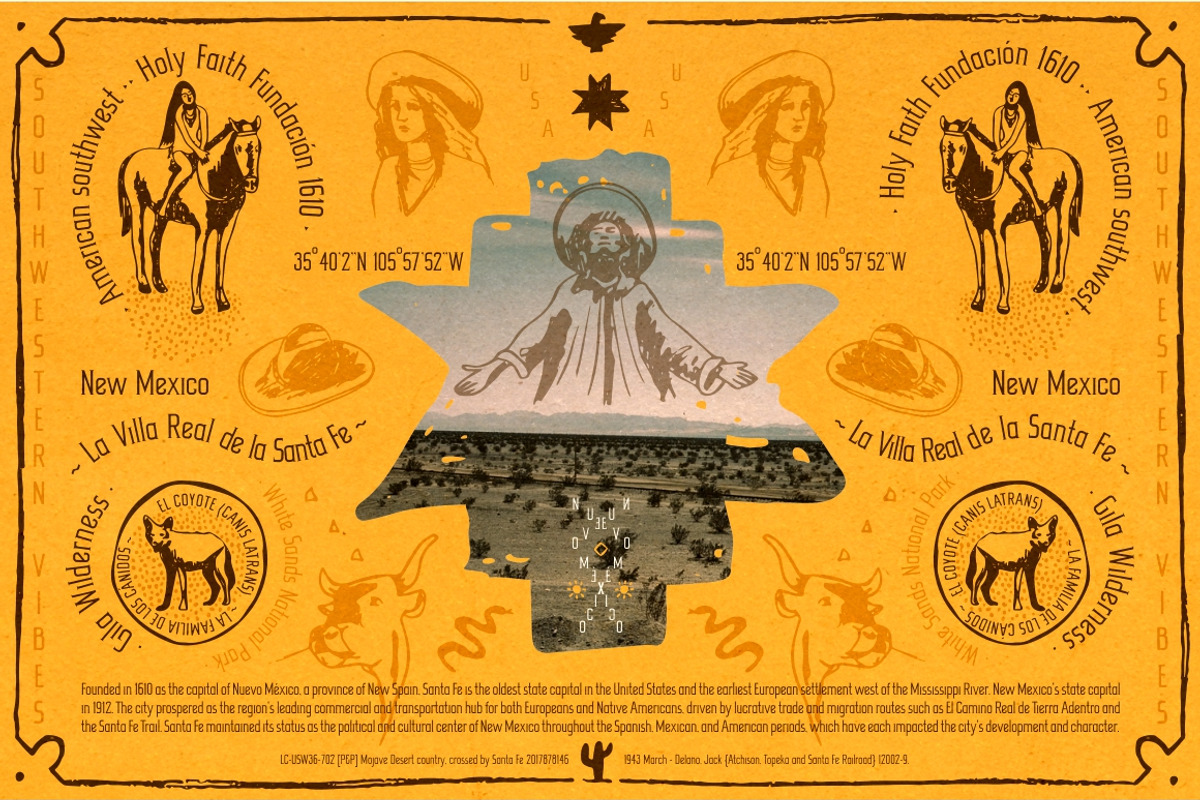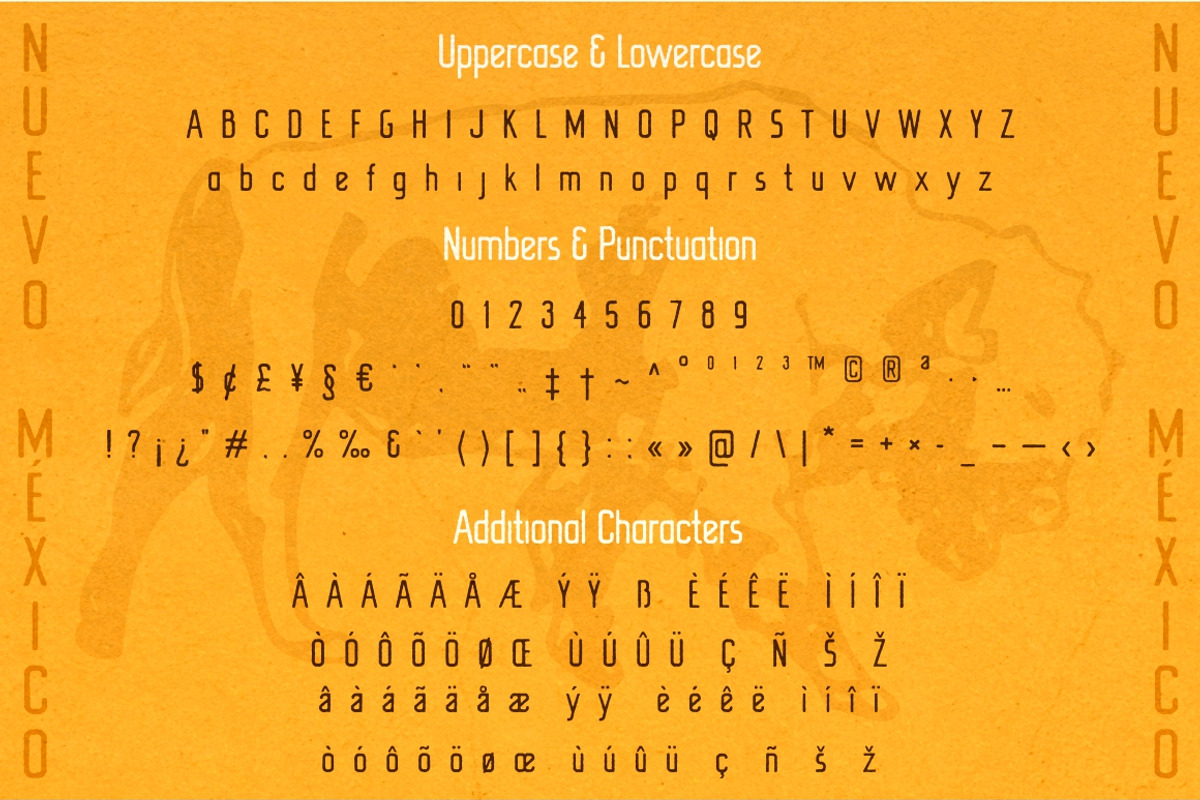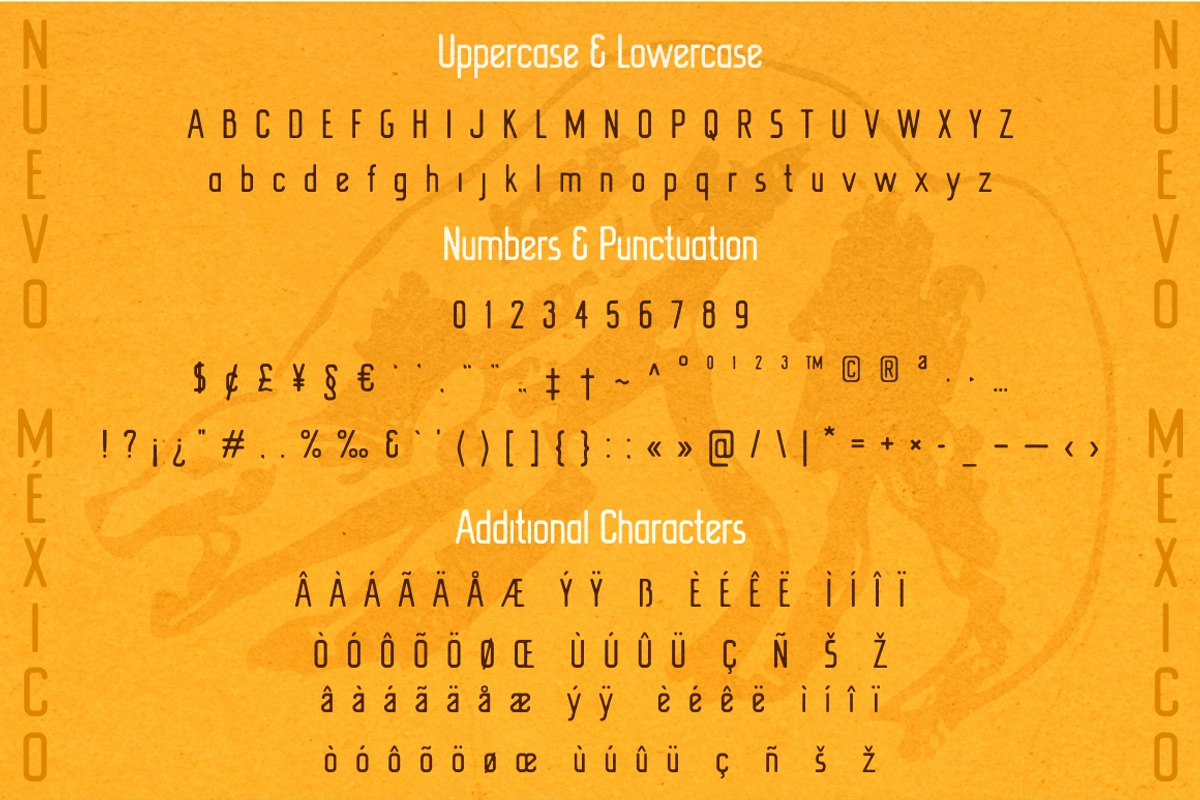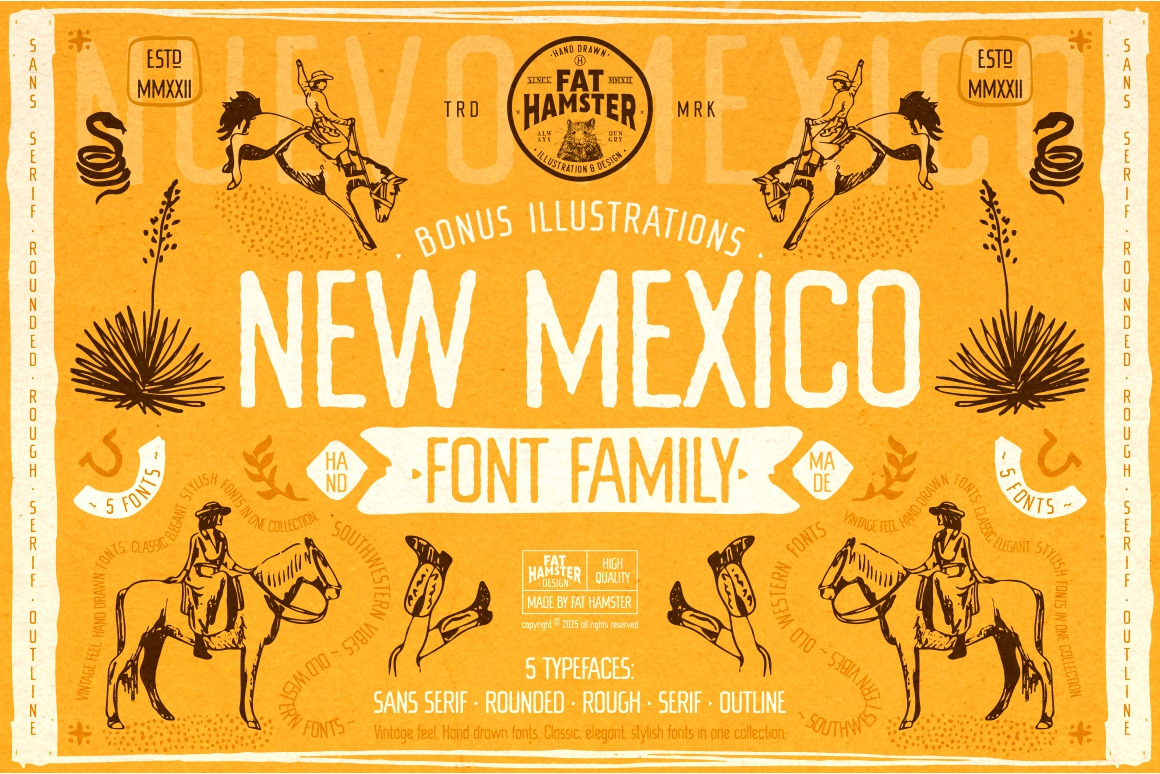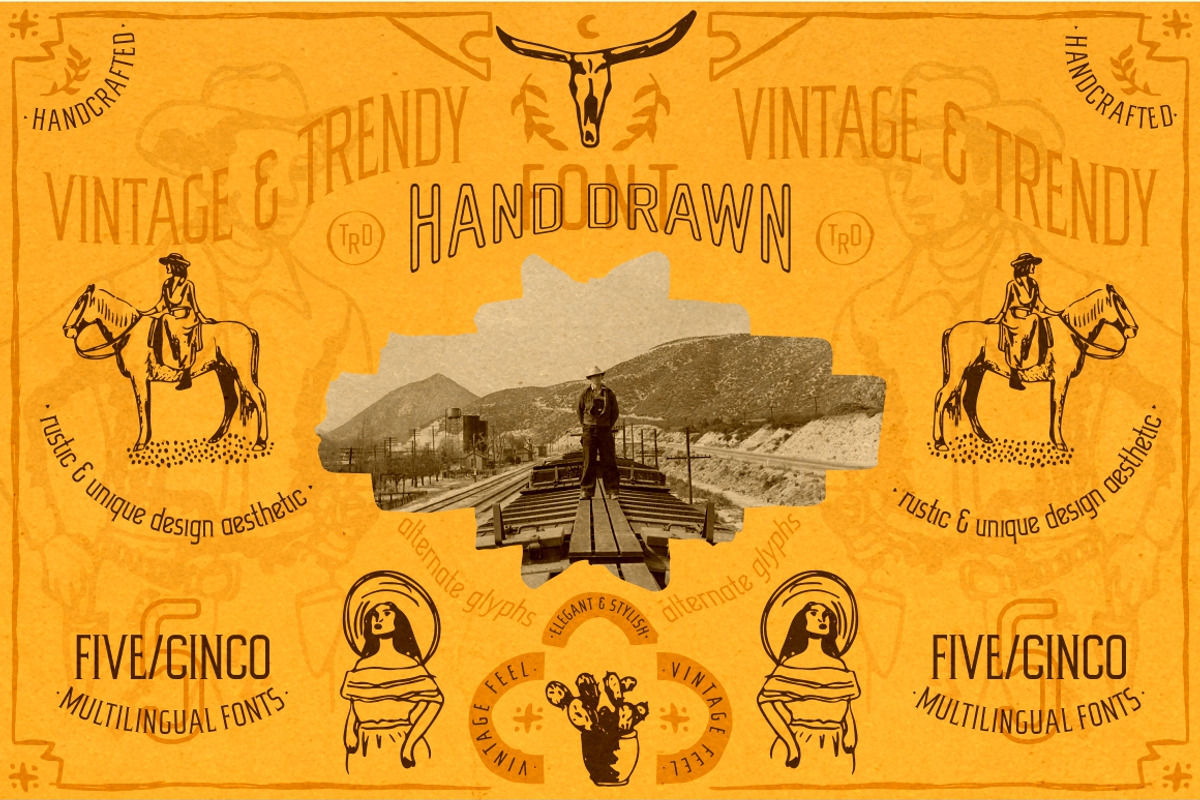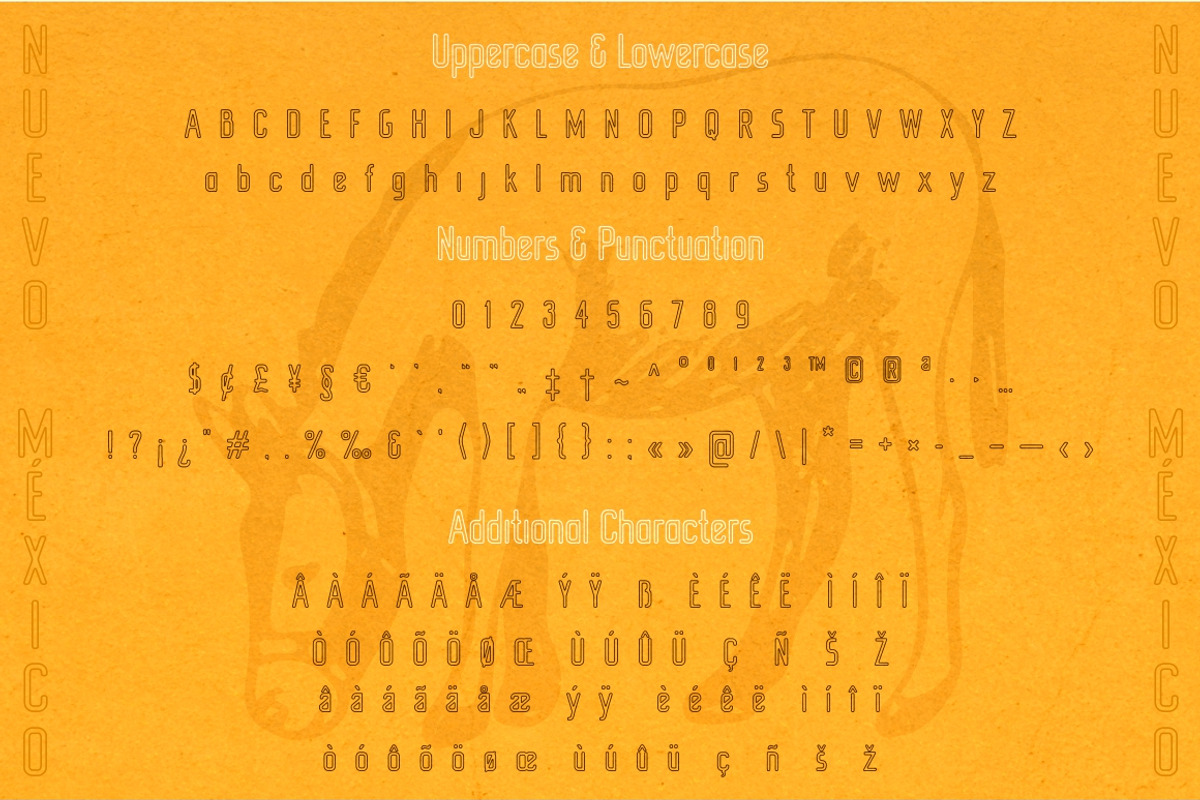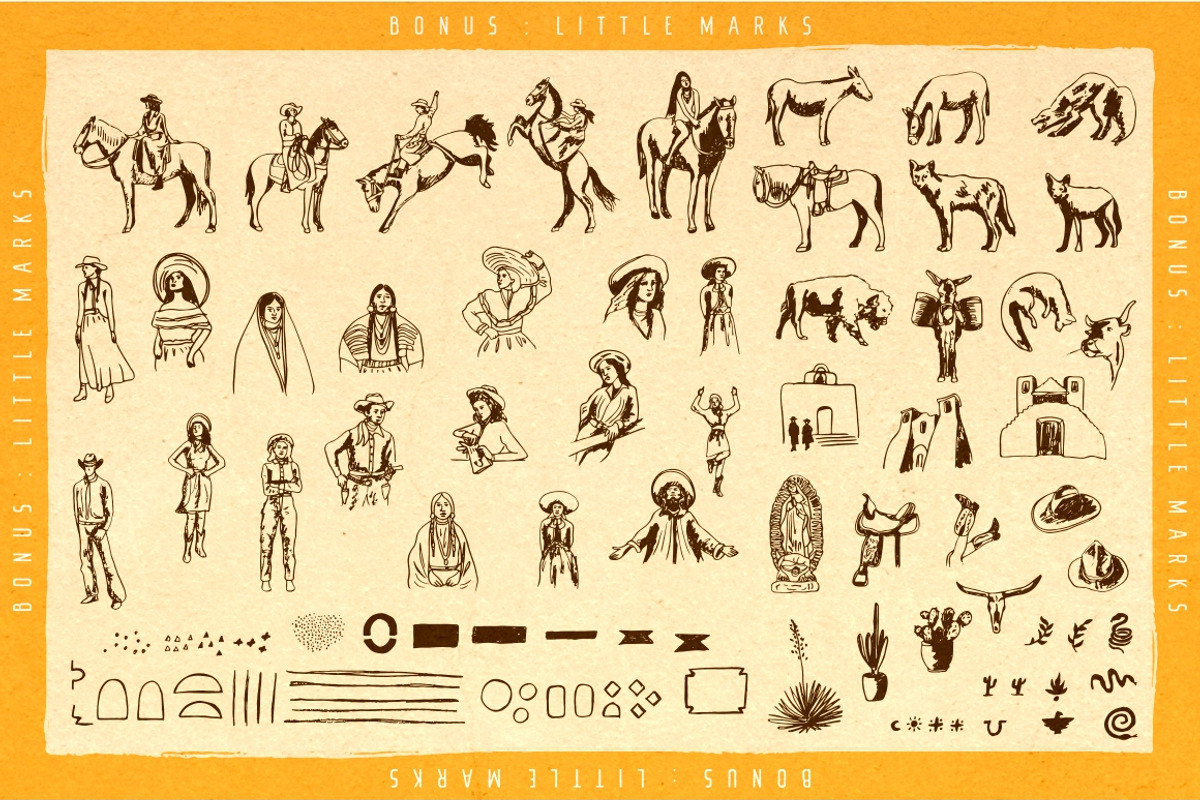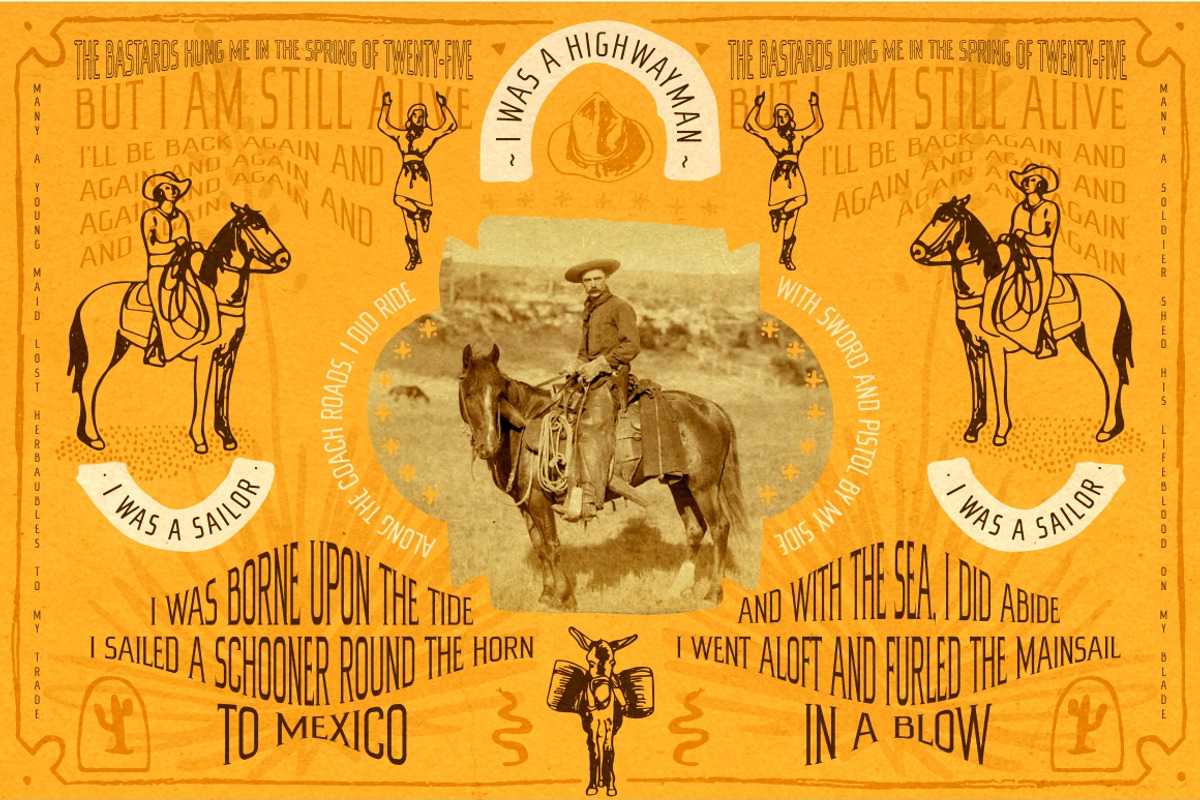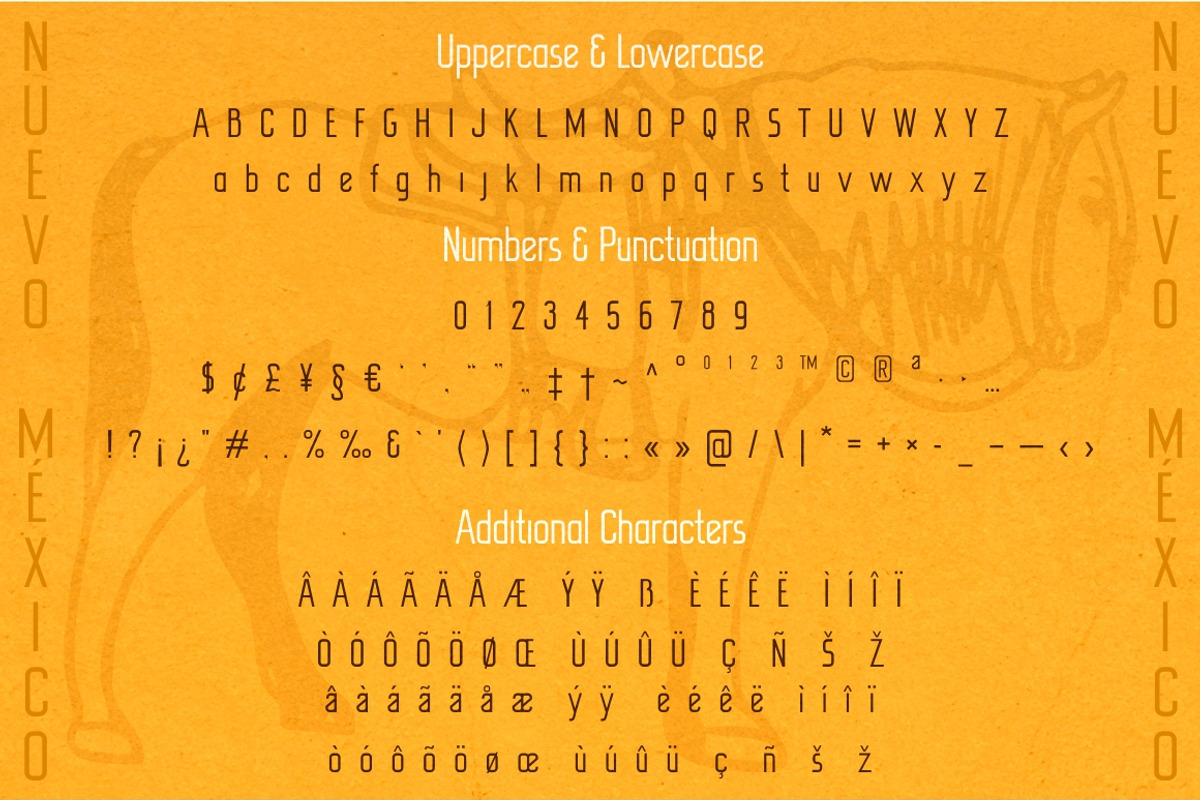
New Mexico southwestern style font
New Mexico - Hand made old southwestern style typeface, includes 5 font styles.
Introducing the New Mexico font: a distinctive and stylish typeface that infuses your project with a unique flair. Drawing inspiration from the breathtaking deserts and natural beauty of New Mexico, this southwestern style font captures the essence of the region. Ideal for tequila and mezcal labels, social media graphics, logos, blog branding, t-shirt designs, whiskey and beer packaging, headings, scrapbooking, calendars, and book covers. With its charming decorative southwestern cowboy & cowgirl illustrations, the New Mexico font is perfect for elevating your design projects. Embrace the spirit of the Southwest in your work!